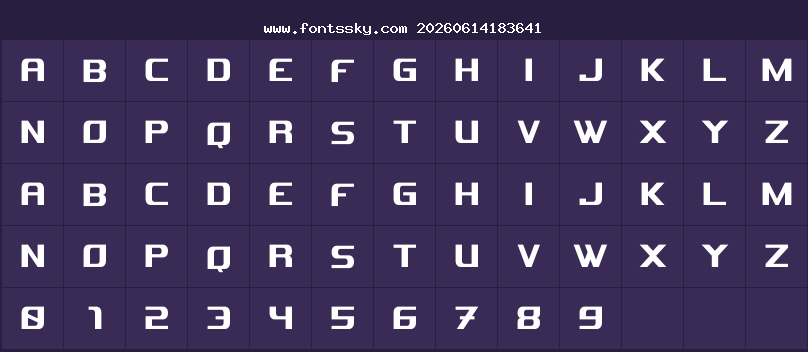
Astron Preview
About Astron.otf
Astron.otf is a modern, elegant sans-serif font designed for ultimate readability and visual harmony. Perfect for branding, headlines, web design, and print materials.